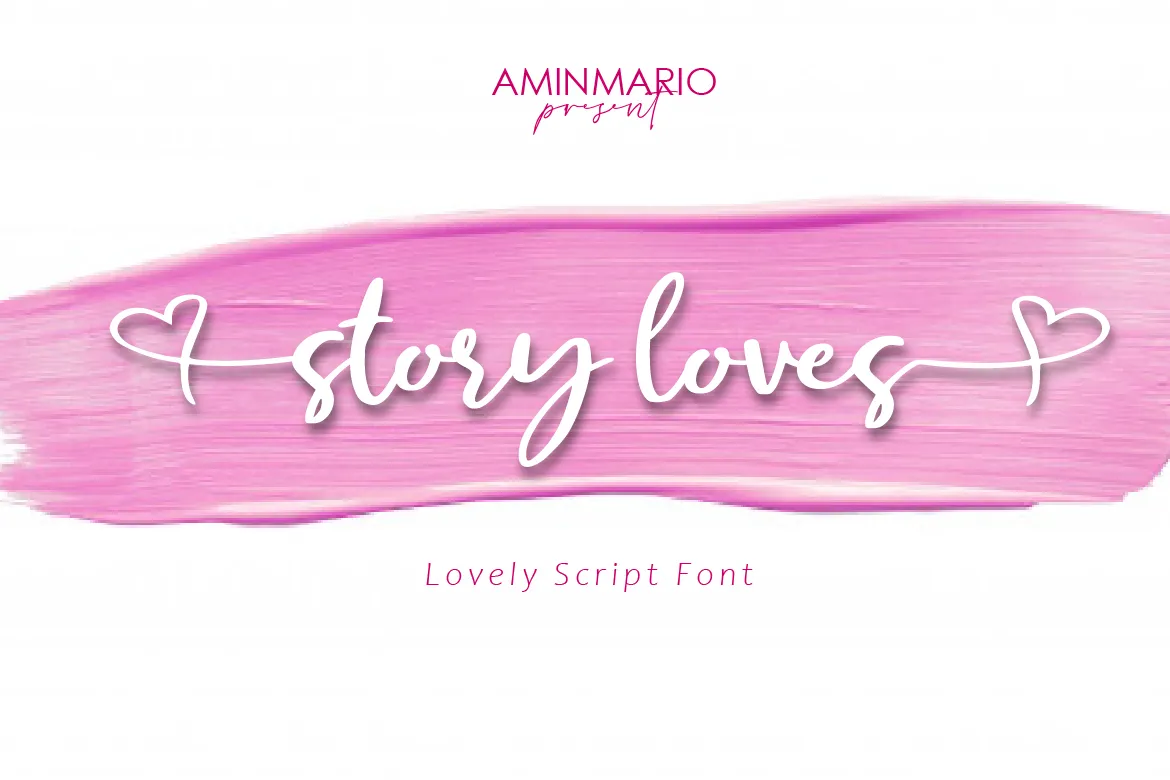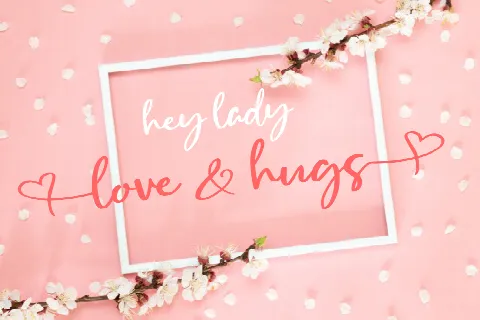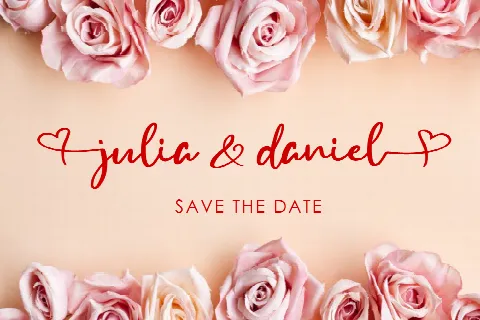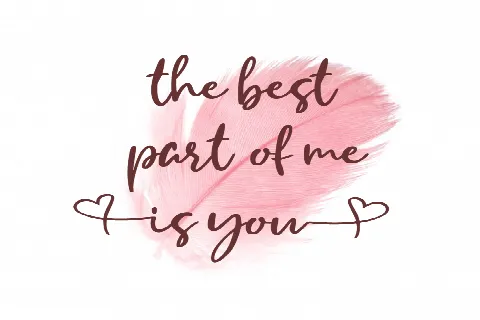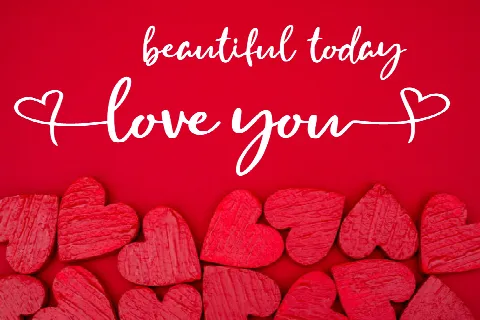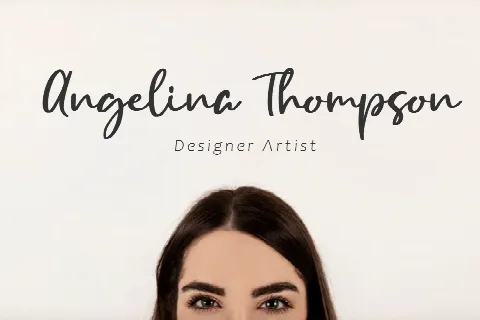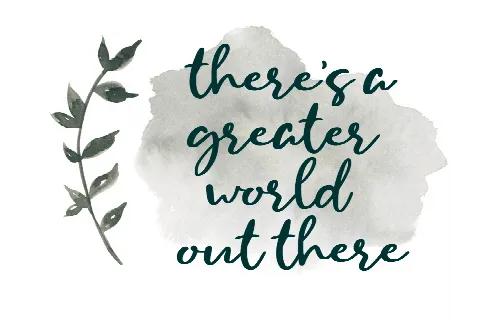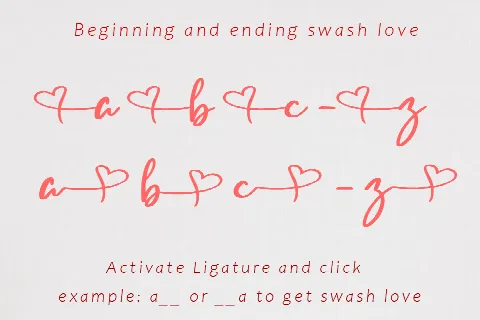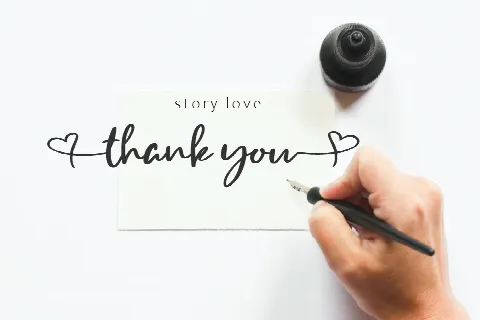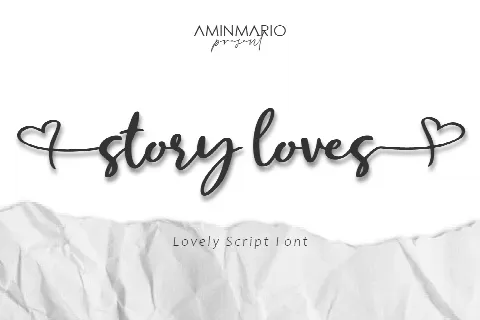
Story Loves
Story loves is a lovely calligraphy with the beginning and the end of the tail of love. That is suitable for branding, quotes, header, wedding invitations, and other romantic projects. Comes with regular and italic. Also support multilingual.
Font Features : Lowercase beginning and ending swash Ligatures